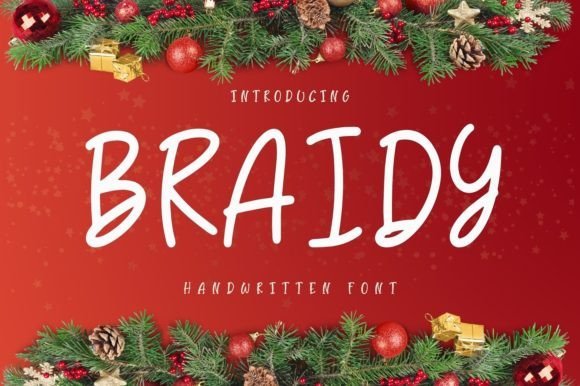
Adding a Personal Touch to Your Designs
There’s something special about a handwritten note or a beautifully crafted invitation that makes it stand out from the crowd. For designers, it’s all about capturing that personal touch and making it shine in their work. Whether it’s a blog post, a logo, or a branding project, the right font can make all the difference.
Enter the Braidy Font, a charming and playful handwritten font that adds a touch of authenticity to any design. With its whimsical feel and effortless charm, the Braidy Font is perfect for adding a personal touch to your projects. From greeting cards to photo albums, and from planners to decorations, this font is sure to delight.
For designers looking to add a unique touch to their work, the Braidy Font is a valuable addition to any design arsenal. Its versatility and charm make it a must-have for any creative project, and its ease of use makes it a joy to work with.
Braidy Font Key Features
- Font Family: Braidy Font is a unique, handwritten font with a mix of elegant and rustic characteristics.
- Character Count: Includes 350+ glyphs, including uppercase and lowercase letters, numbers, and punctuation marks.
- Size: The font is available in 4 different sizes: Light, Regular, Bold, and Extra Bold, allowing for a range of design options.
- Unique Characteristics: Braidy Font features a distinctive, hand-drawn style with varied line widths and subtle imperfections, giving it a natural and organic feel.
Braidy Font Review
Overall, I’d say Braidy Font is an interesting addition to any design project. Let’s dive into what works well and what might need some tweaking.
- Creativity and originality: Braidy Font is certainly unique, offering a modern, hand-drawn aesthetic that can add a personal touch to any design.
- Legibility: Despite its playful nature, Braidy Font is relatively easy to read, making it suitable for body text or headings.
- Flexibility: The font comes in a range of weights, from light to bold, allowing designers to experiment with different styles and moods.
- Limited compatibility: Braidy Font might not be suitable for all projects, especially those that require a more traditional or corporate look.
- Overuse: The font’s playful nature can be overwhelming if used excessively, so designers should use it sparingly to avoid visual fatigue.
- Typography nuances: Braidy Font’s unique style can sometimes make it difficult to achieve perfect typography, such as precise line spacing or kerning.
Overall, Braidy Font is a great addition to any designer’s toolkit, but it’s essential to use it judiciously and consider the project’s specific needs and audience. With some creative restraint and attention to typography details, Braidy Font can elevate designs and add a touch of personality.
Some common use cases for Braidy Font include:
- Baby shower invitations and decorations
- Personalized gifts and cards